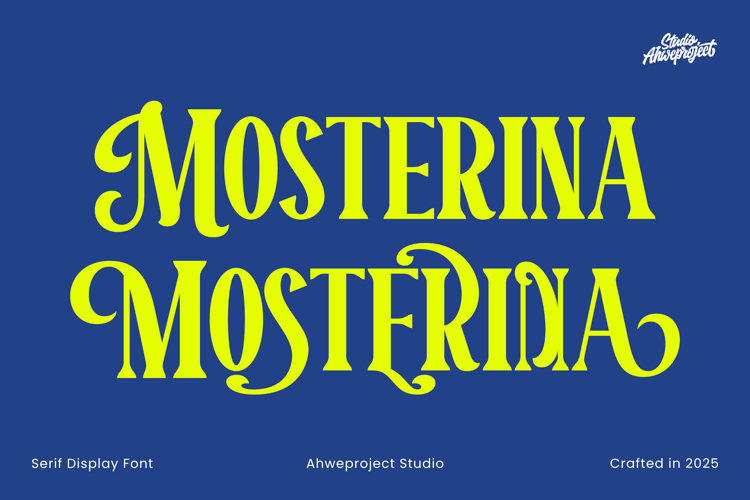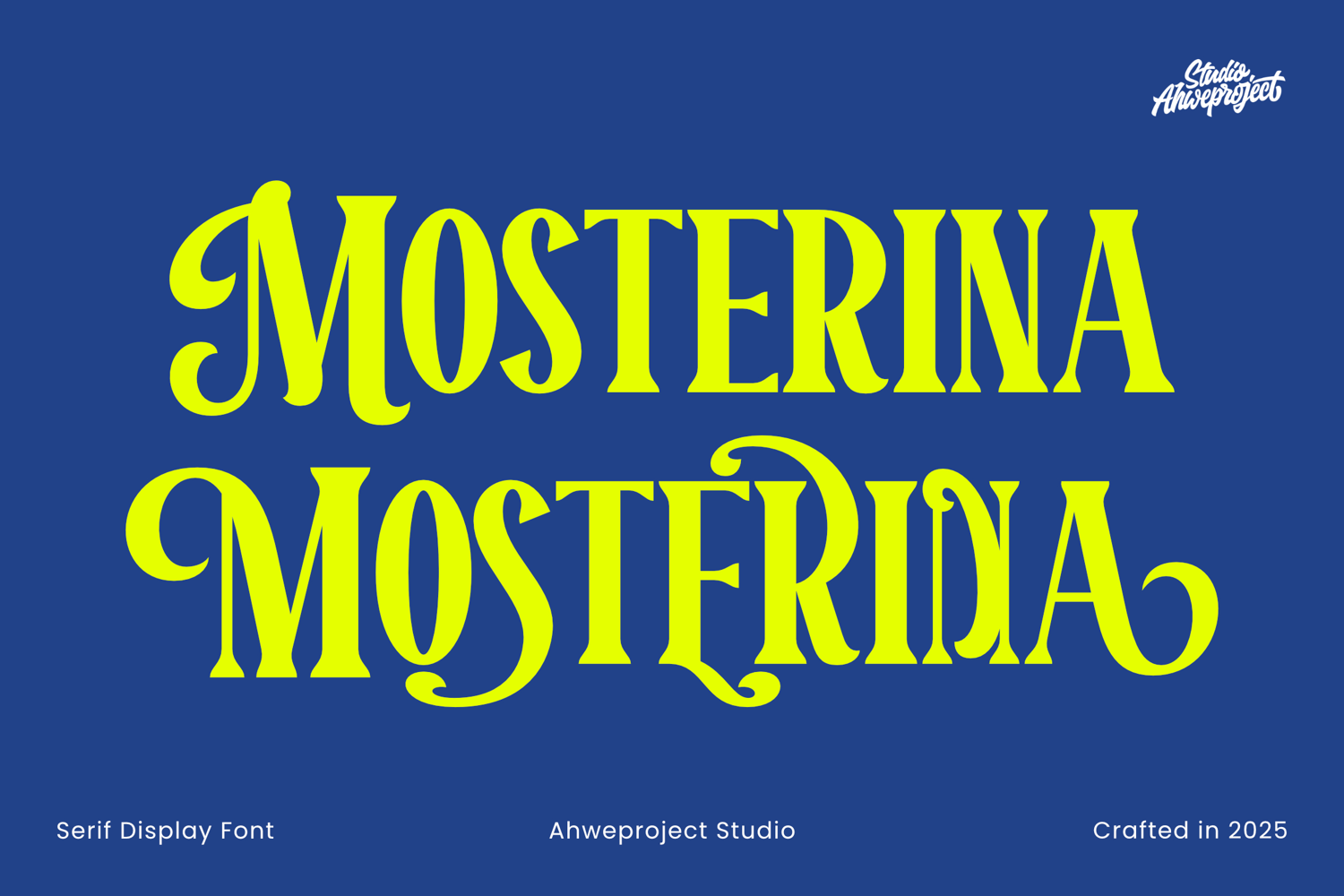
Mosterina
Mosterina is a vintage–modern serif display with strong contrast, elegant sharp terminals, and dynamic swashes for dramatic accents. Its expressive letterforms make headlines and logos instantly eye-catching—perfect for branding, posters, editorial/fashion, product packaging, website hero sections, YouTube thumbnails, and seasonal campaigns.
Why Mosterina stands out:
- OpenType Features: Stylistic Alternates for rich character variations.
- Easy to customize: uppercase letters with optional tails/swashes for a glamorous look—or keep it clean without swashes.
- Clean & readable: precise kerning for big headlines and supportive subheads.
- Multilingual support (Basic Latin + Extended), with full numerals and punctuation.
Great for: coffee & roastery logos, cosmetic labels, event posters, magazine covers, video titles, boutique signage, and creative projects with retro, classic, or premium editorial vibes.